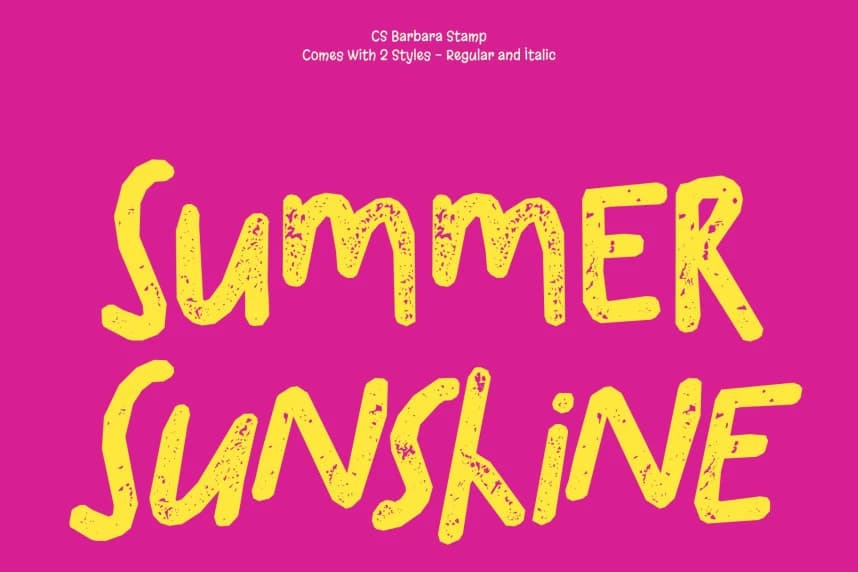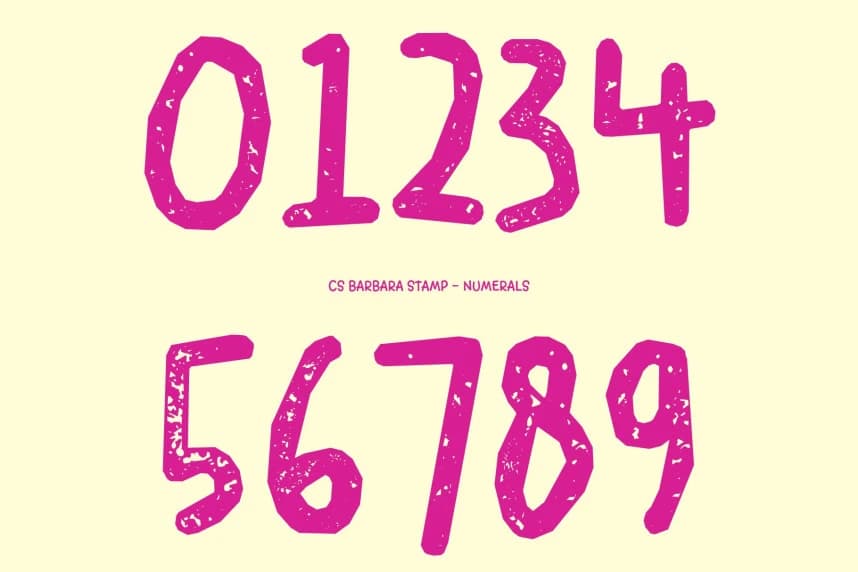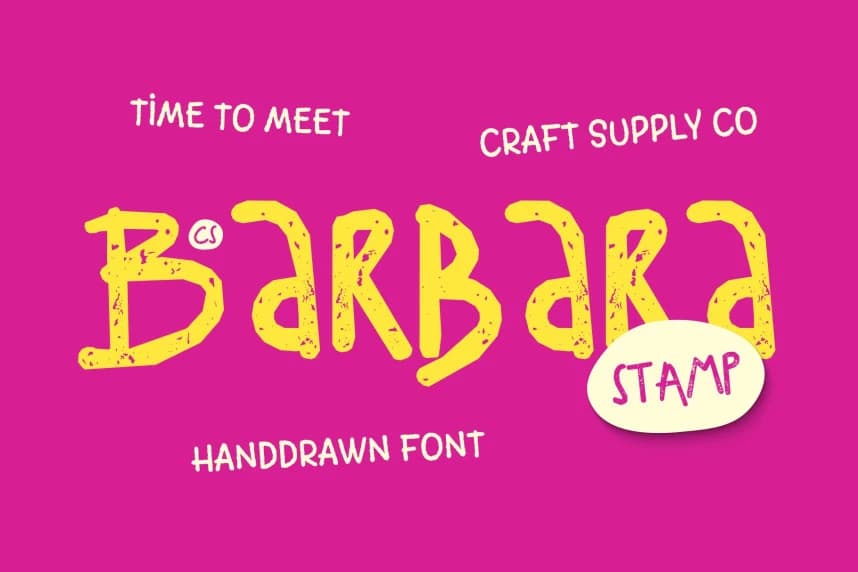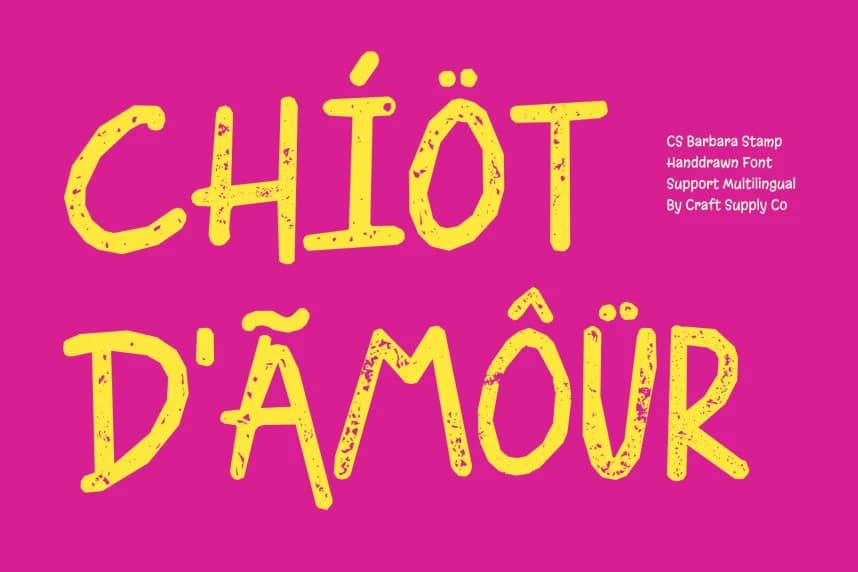
CS Barbara Stamp Font – Playful Handwritten Font with Energetic Vintage Touch Playful Energy with a Stamped Finish. This radiates fun and positivity through its rounded, flowing handwritten strokes now enhanced with a subtle stamped texture.